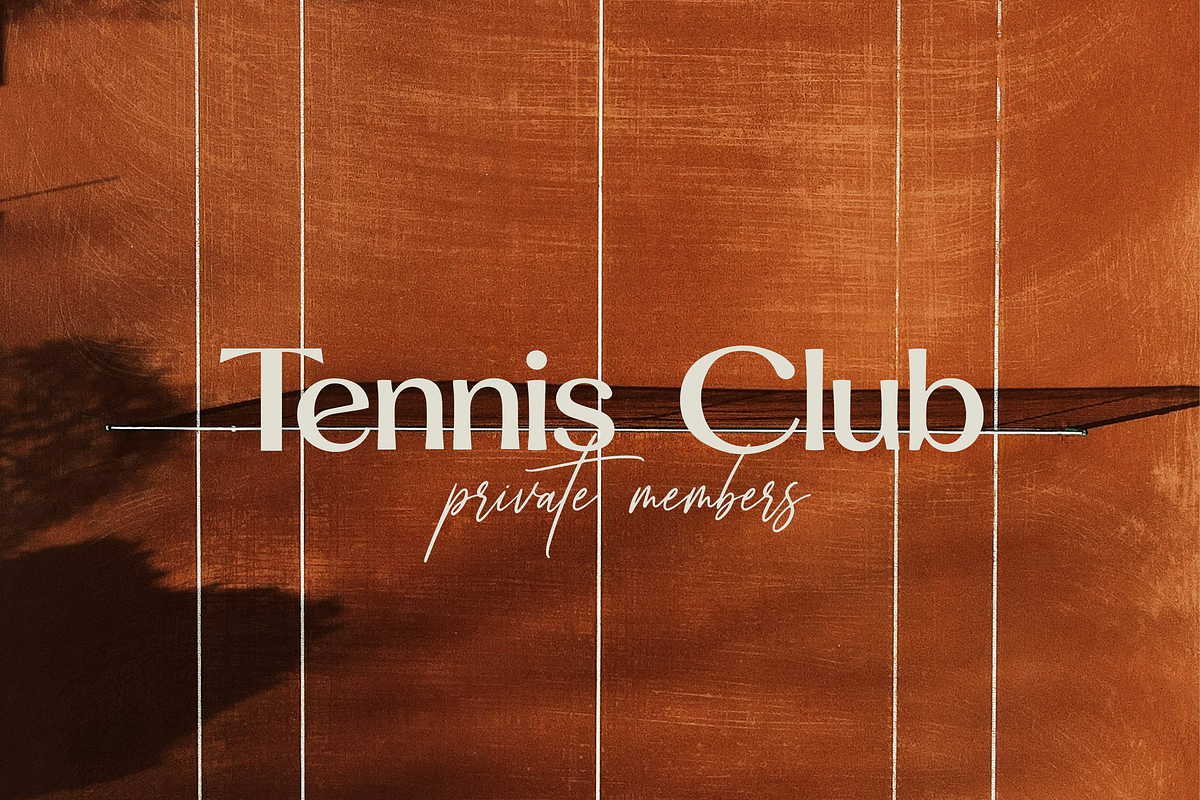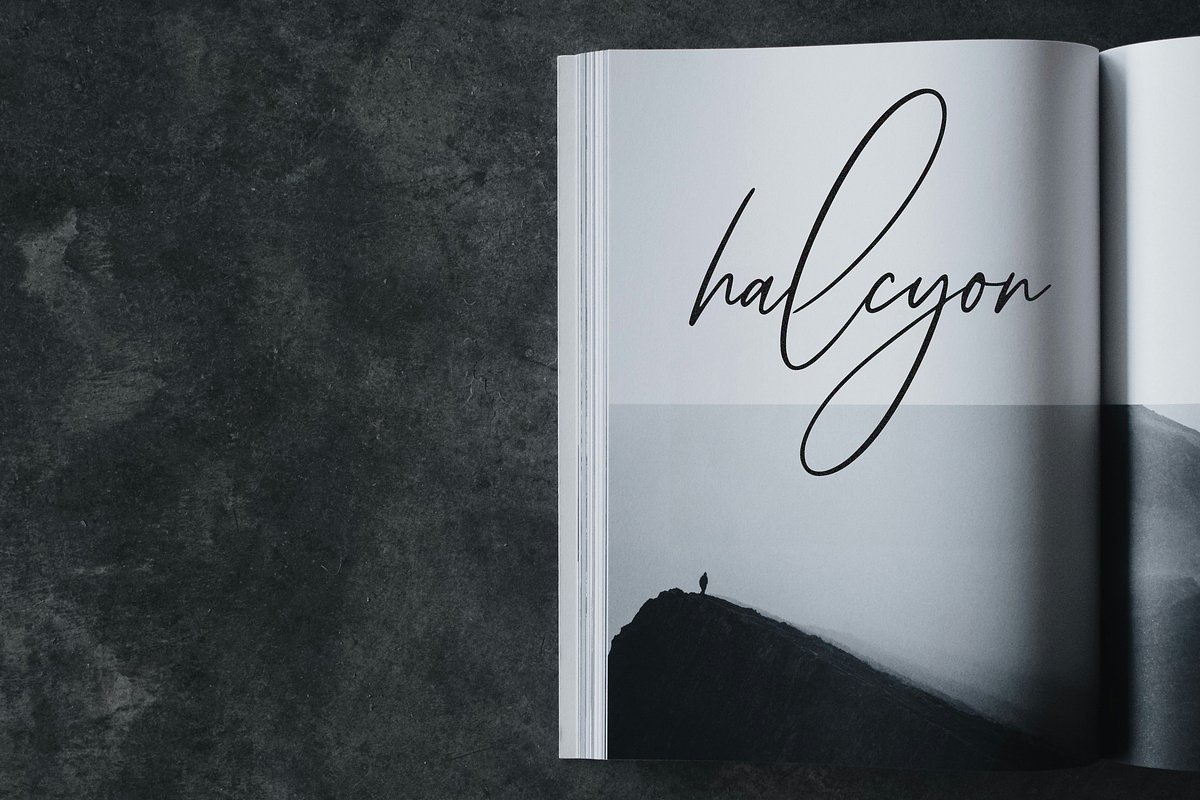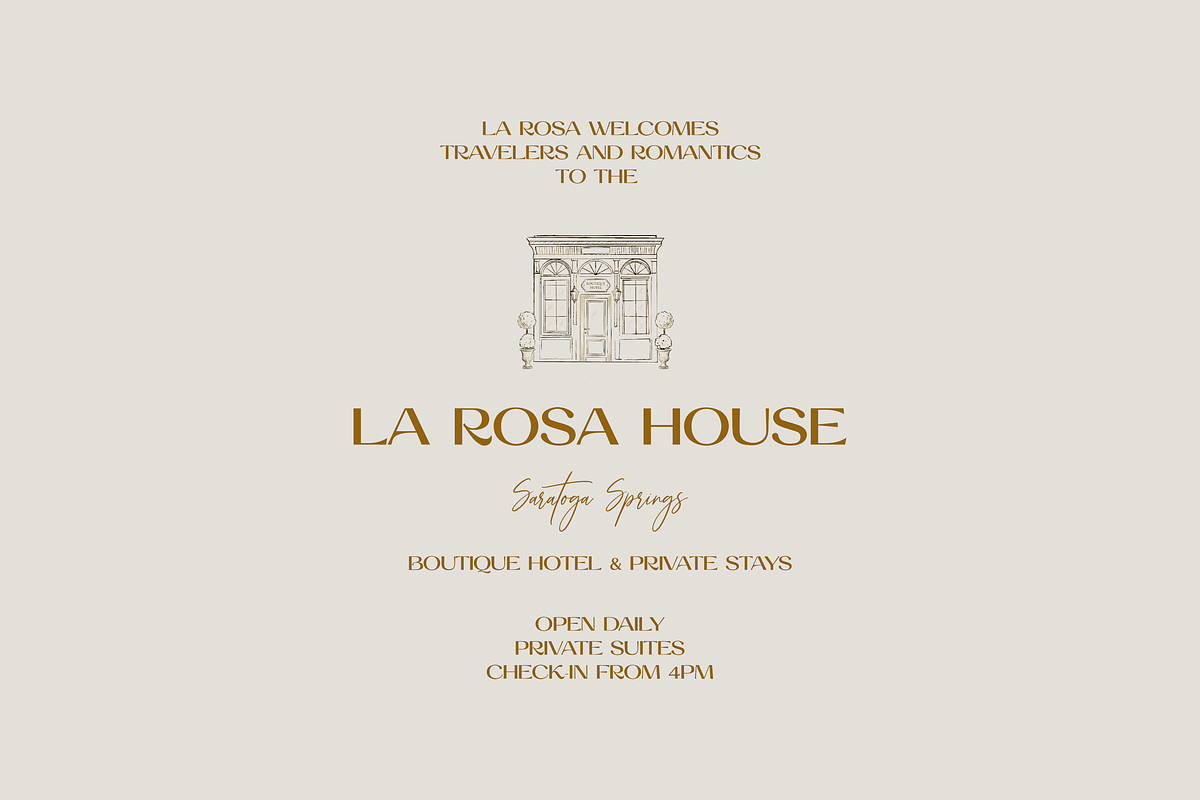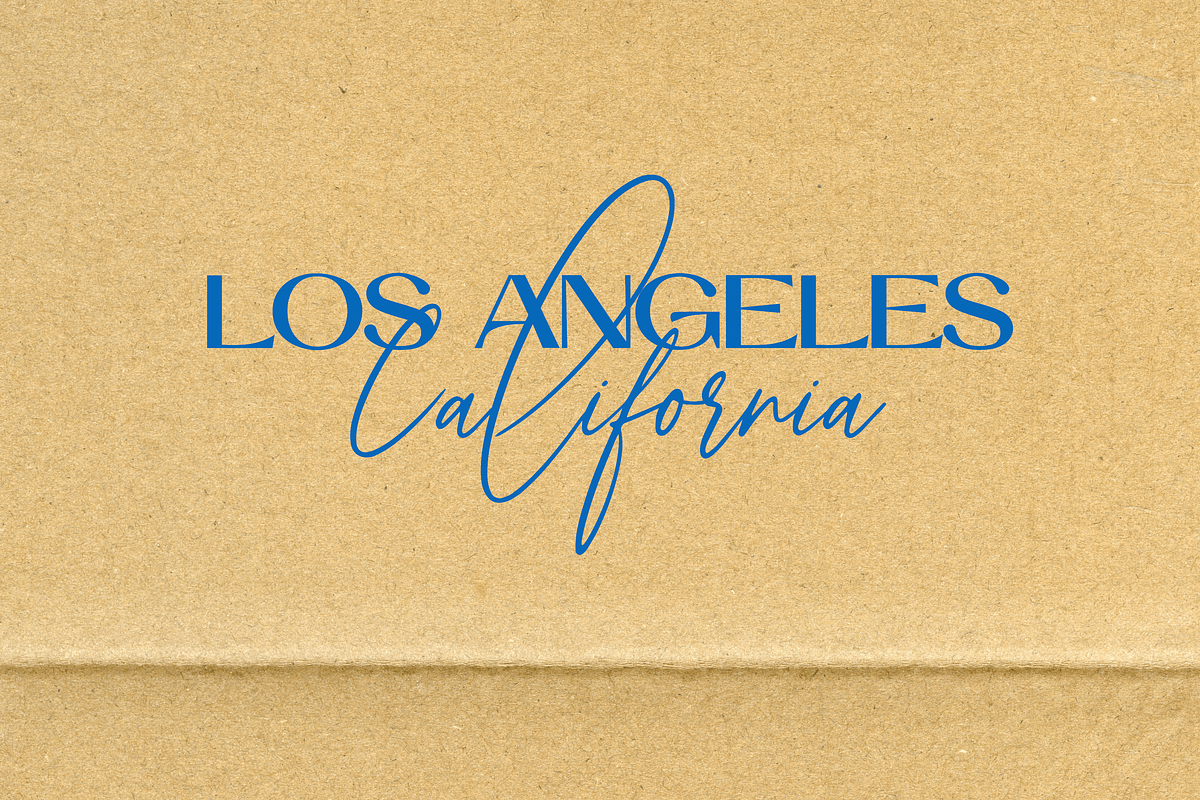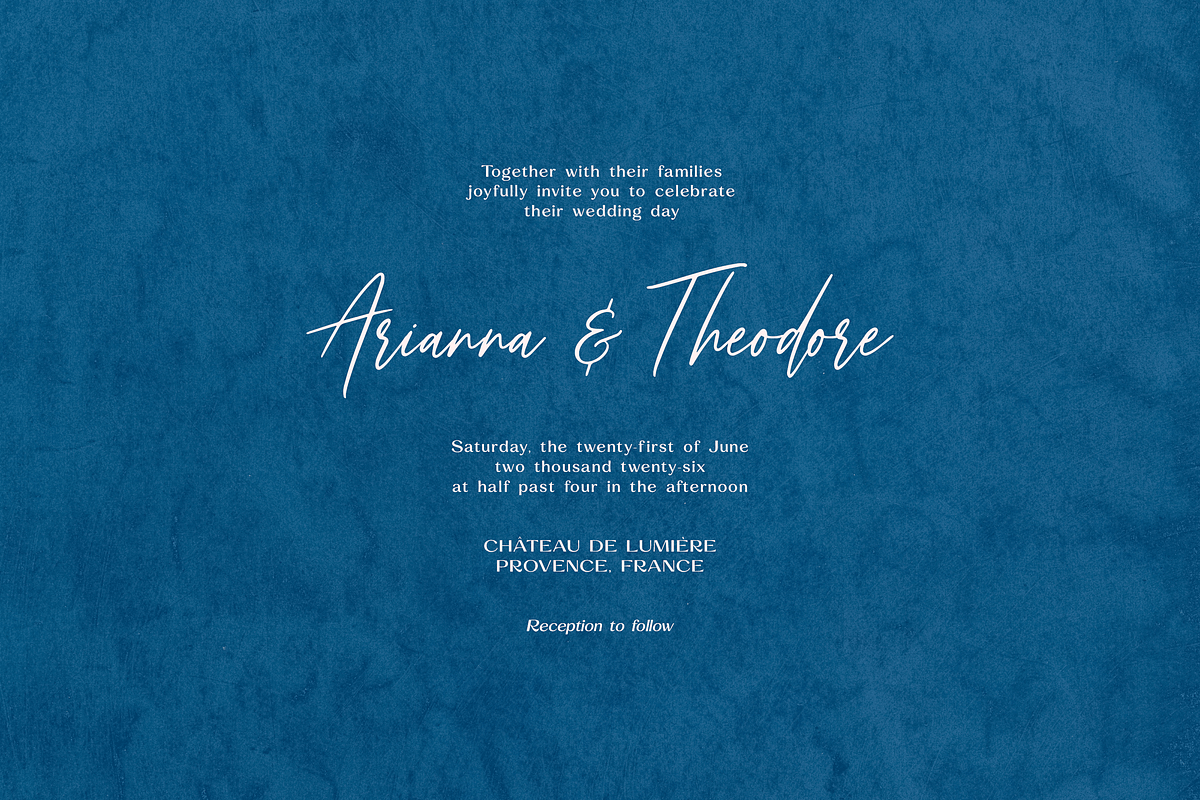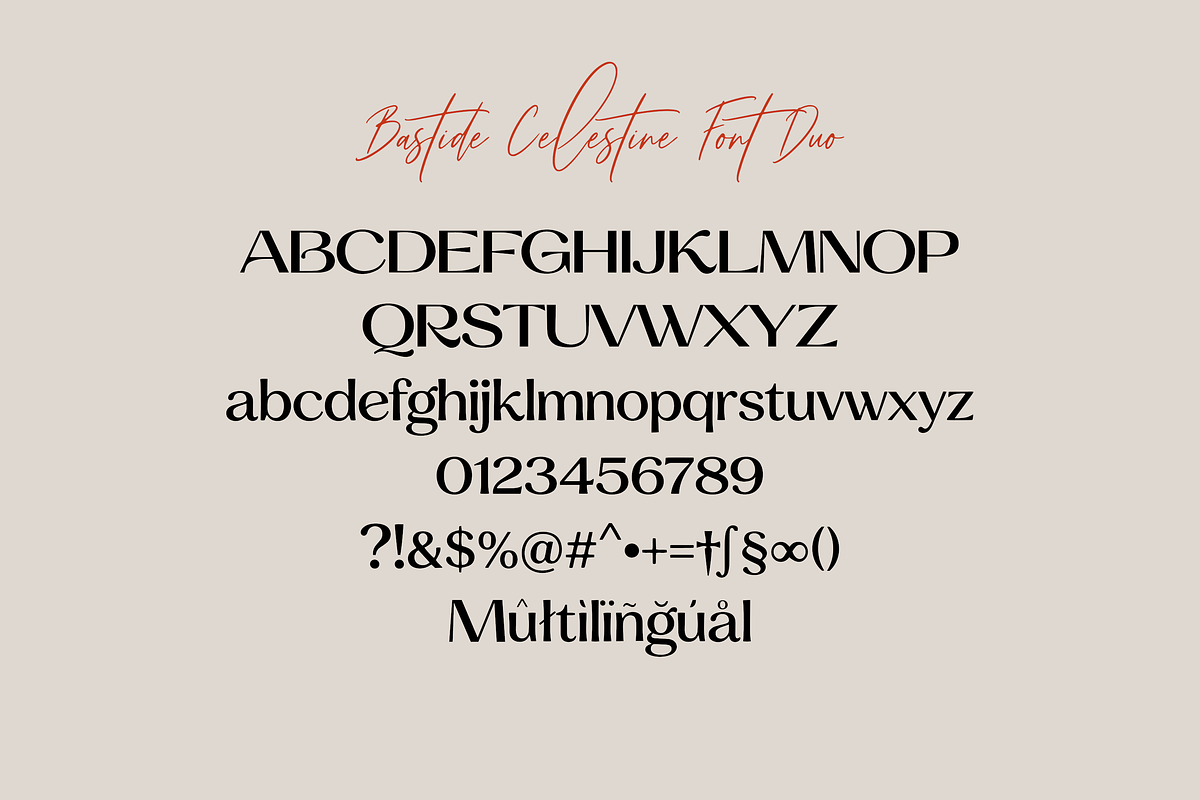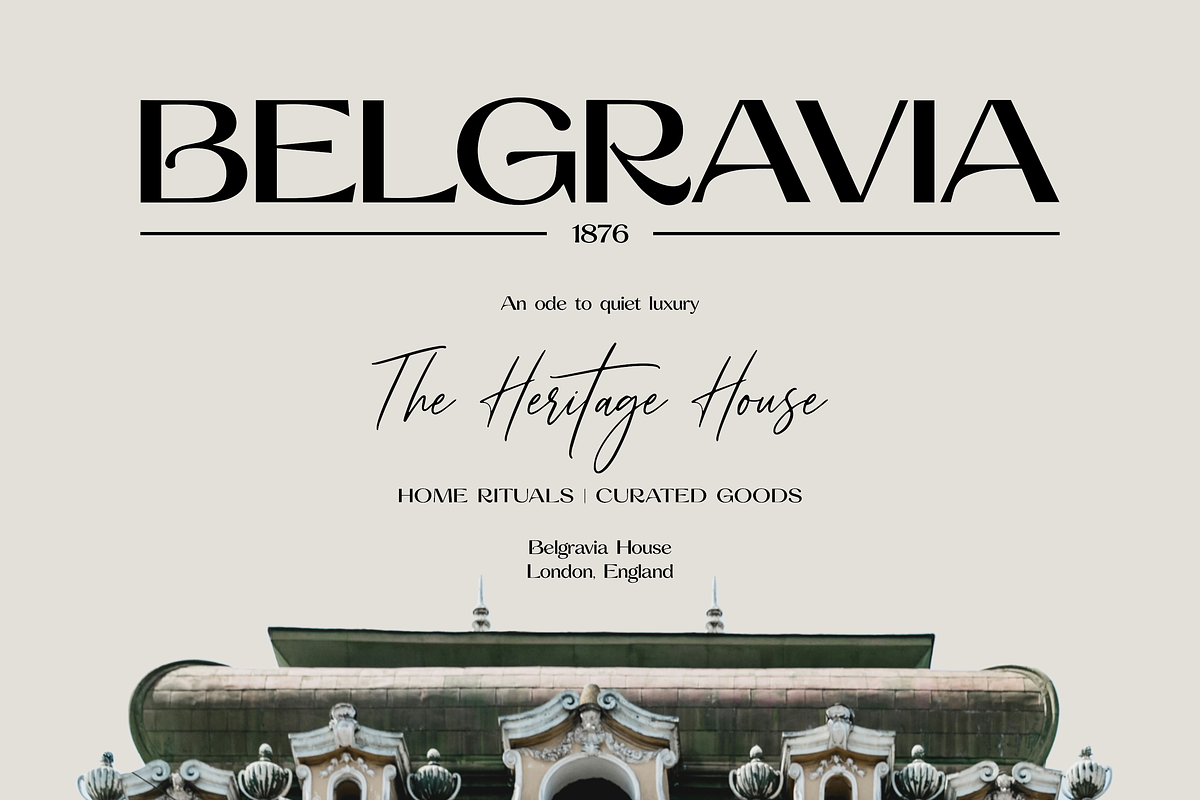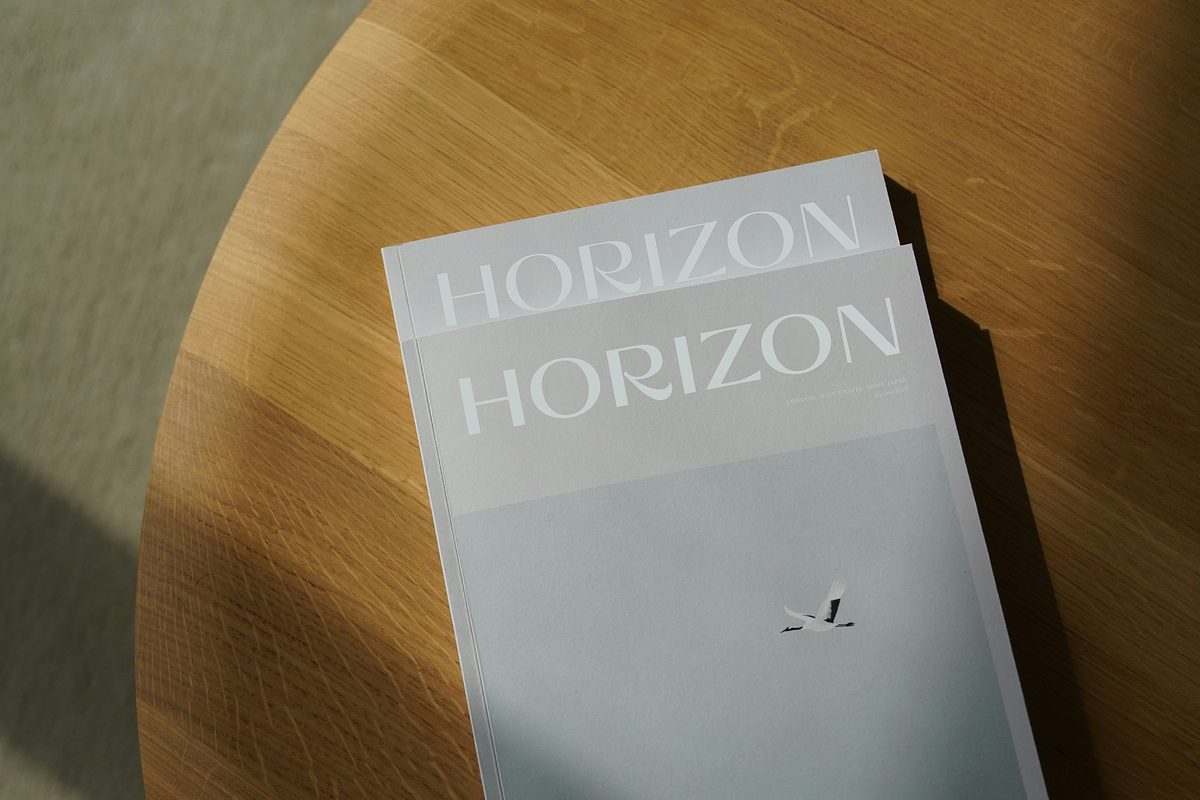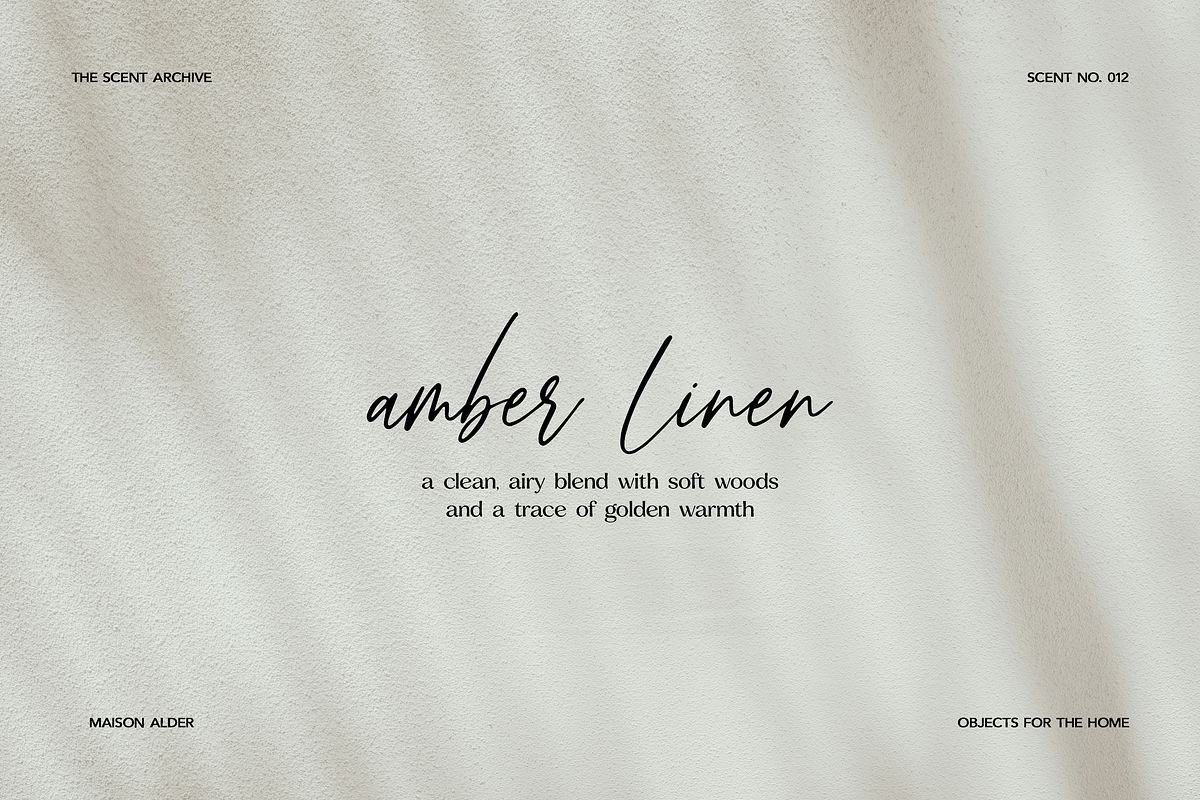
Bastide Celestine Font Duo
Introducing Bastide Celestine - a chic font duo with an elegant editorial soul and a graceful handwritten touch.
Bastide Celestine combines a refined high-contrast serif with a delicate signature-style script, creating a polished pairing for sophisticated design projects. The serif font brings timeless elegance, sharp curves, and a luxury fashion feel, while the script adds movement, romance, and a personal handwritten accent.
This font duo is perfect for branding, wedding stationery, logos, packaging, editorial layouts, boutique designs, social media graphics, beauty products, invitations, quotes, and modern luxury projects.
Use the serif for striking headlines and classic typography, then pair it with the script for soft, expressive details. Together, they create a stylish balance of modern elegance and romantic charm.
Perfect for: Luxury branding, wedding invitations, logos, fashion editorials, beauty brands, packaging, boutique identity, social media templates, greeting cards, stationery, magazines, photography branding, and elegant quote designs.